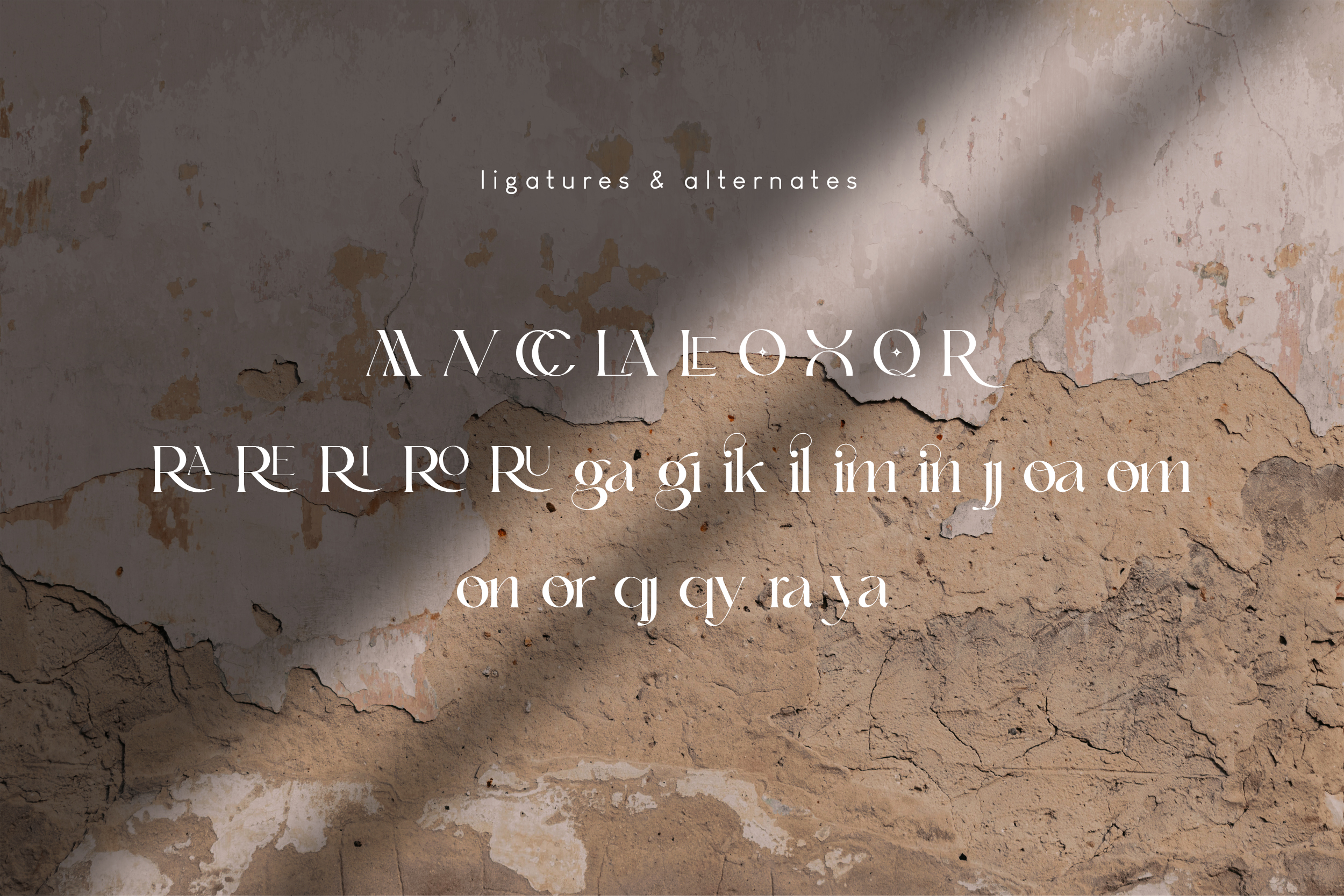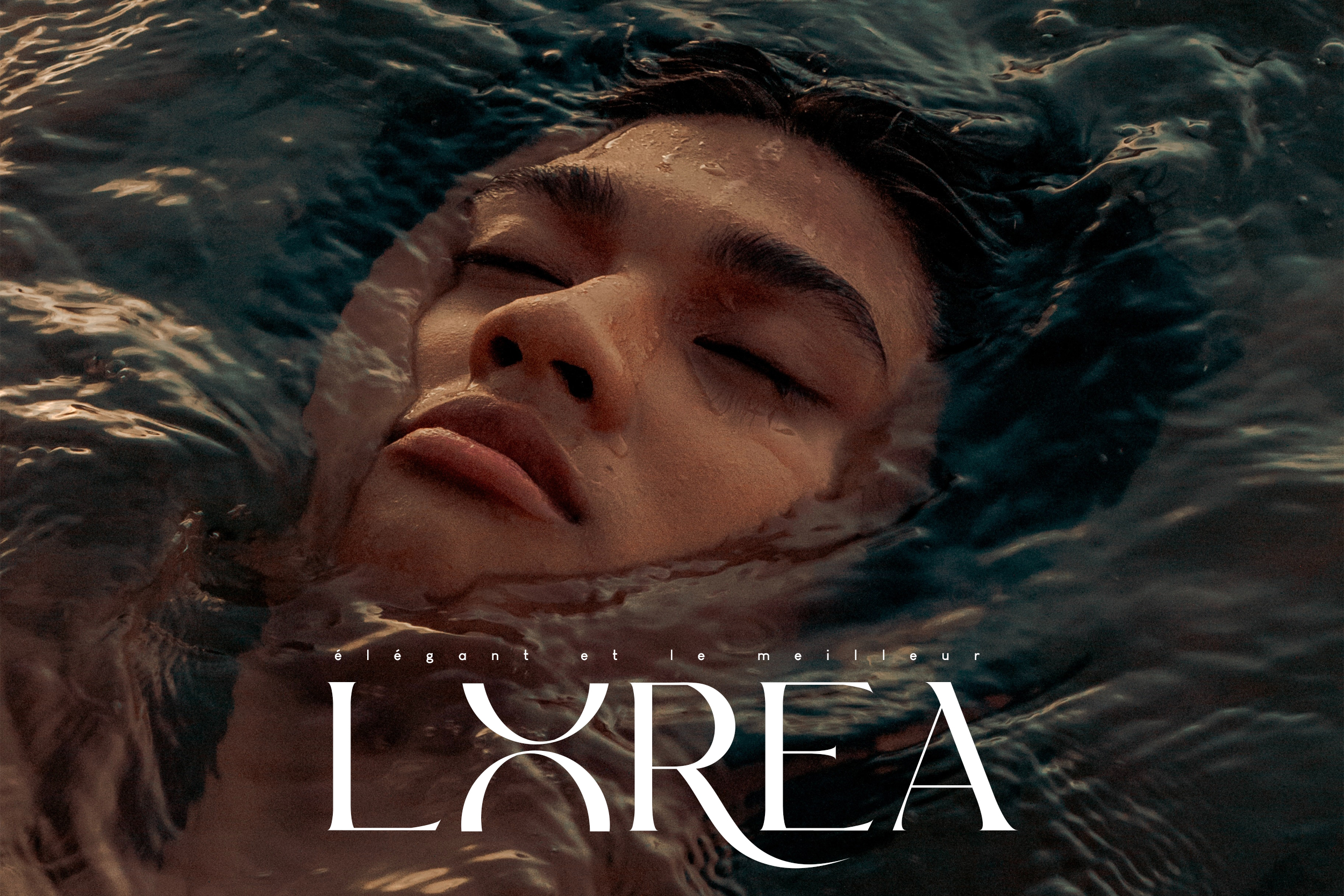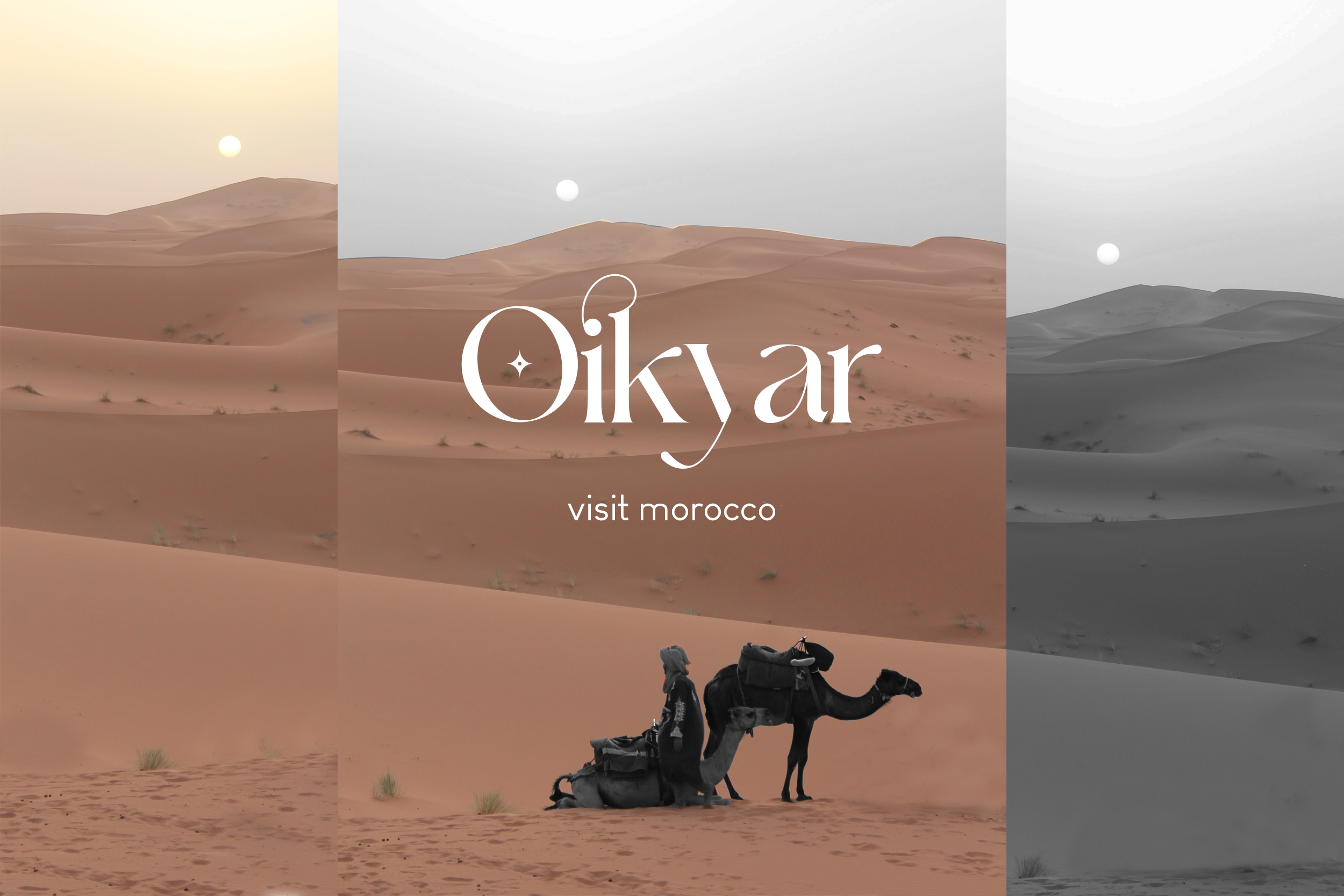
Eu Alonira Serif Font is elegant serif font that look aesthetic Perfect for Logo brand, advertisement, product packaging, social media post, clothing brand, magazine headers and many more